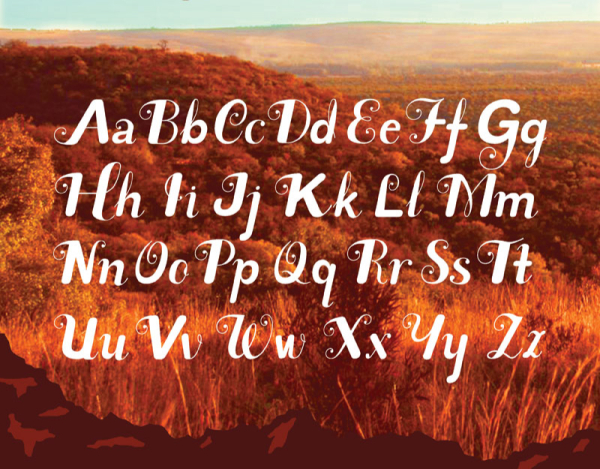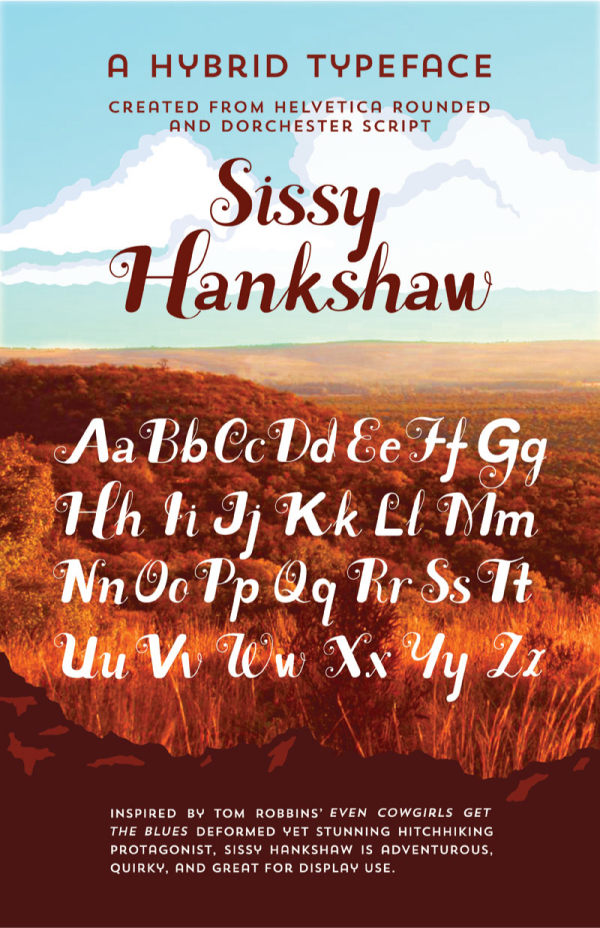
Sissy Hankshaw
Helvetica Rounded and Dorchester Script were combined to create this hybrid typeface as a typographic embodiment of Tom Robbins’ Even Cowgirls Get the Blues protagonist Sissy Hankshaw. A stunning wanderlust with cucumber-sized thumbs (and therefore a superior ability to hitchhike), Sissy’s feminine beauty is referenced with Dorchester while Helvetica Rounded adds an awkwardness in homage to her oversized appendages. Sissy is quirky, adventurous, and great for display use.
Designer: Anika Samples
Publisher: Anika Samples